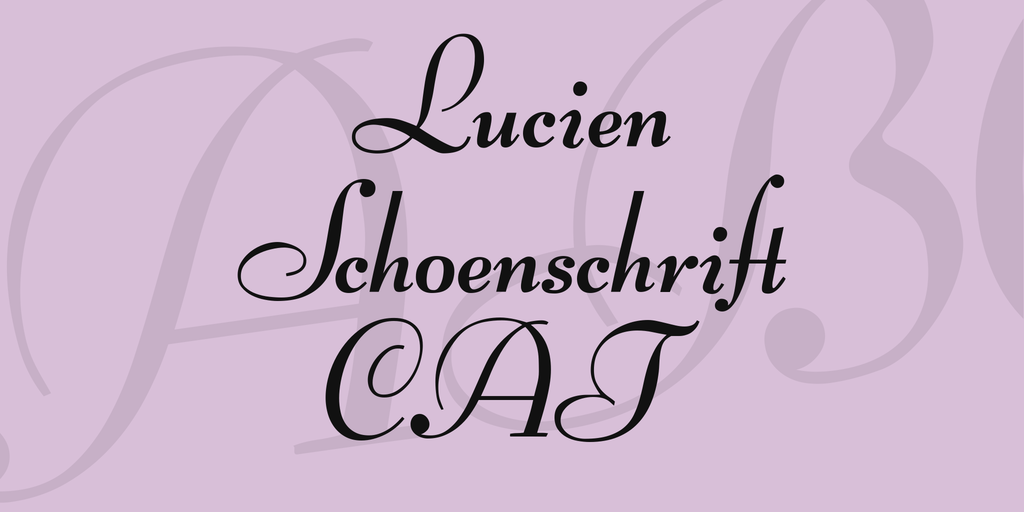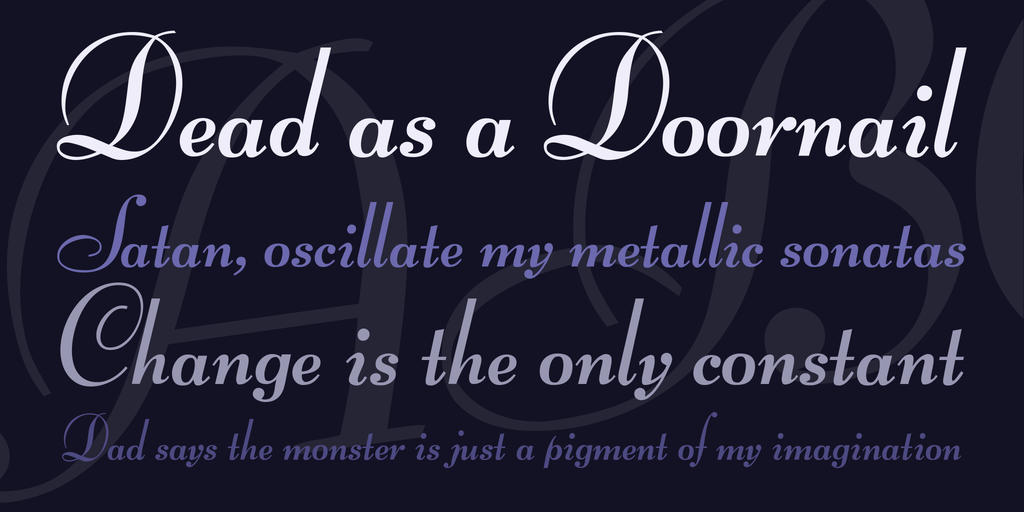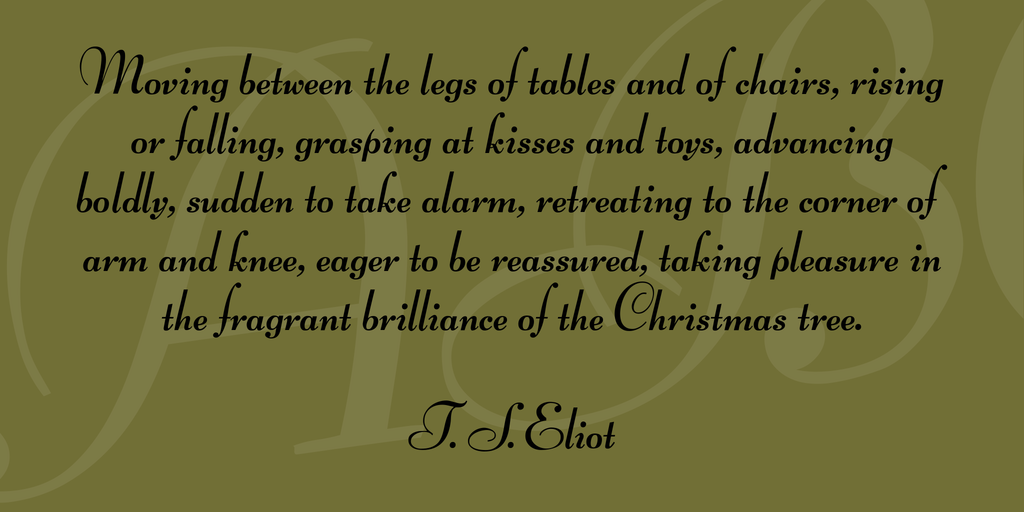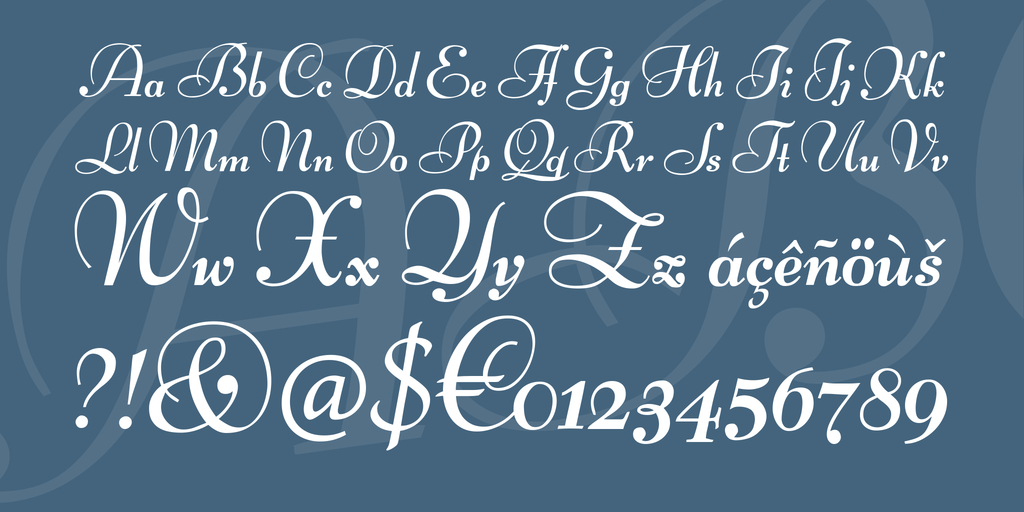
Lucien Schoenschrift CAT Font
Translation of the original German description: And here is another font once published by the Bauersche Gießerei foundry, a calligraphy font originally designed by Lucian Bernhard in 1928, here in the sturdy version and expanded with ligatures by me. Please donate if you like this font!